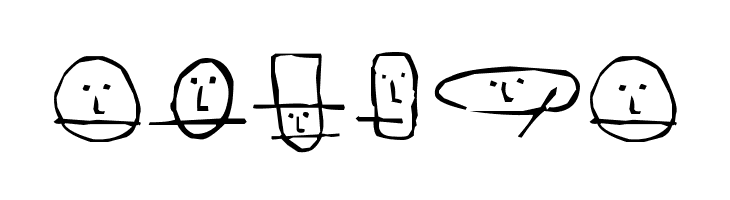
I am Nervous. Font
A bold, quirky, hand-drawn font with irregular, playful letterforms.
happy offsprings of plankton Font
A whimsical, hand-drawn font with playful, cartoonish characters.
between my ears Font
A whimsical, cartoon-like decorative font with playful creature designs.
unusual suspects [ square eyes ] Font
A playful, hand-drawn font with characters resembling unique faces.
do i lie? Font
Whimsical, hand-drawn decorative font with playful shapes and faces.